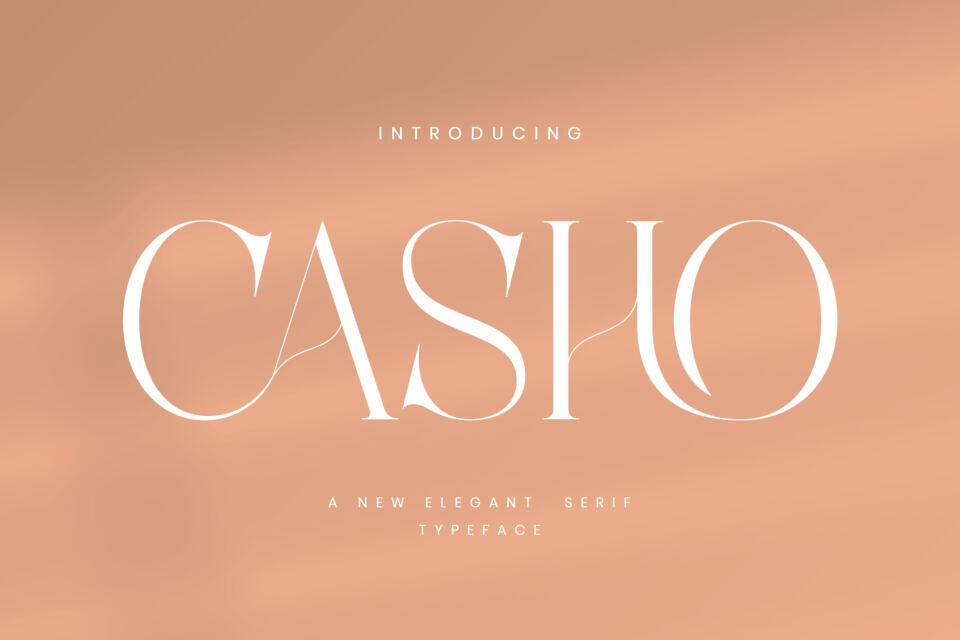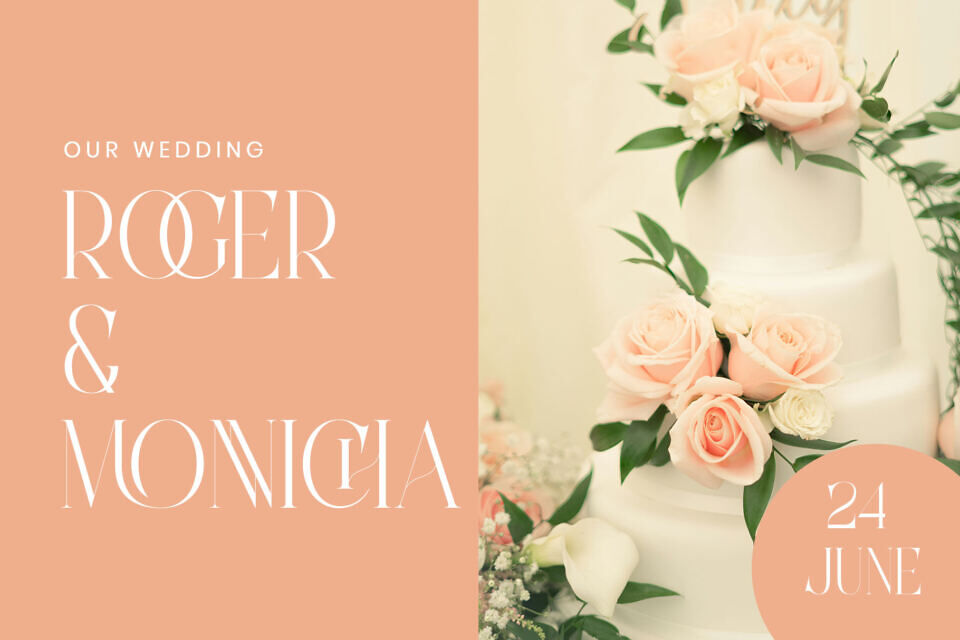
Casho Font
The Casho font is a stunning new, elegant serif typeface that masterfully blends traditional high-contrast serifs with breathtaking, delicate swashes and ligatures. Its refined, tall letterforms possess a luxurious, ethereal quality, enhanced by the sweeping, graceful lines that connect and extend beyond the typical character boundaries.
This typeface is the epitome of feminine luxury and subtle drama, ensuring an upscale and exclusive feel. Ideal for high-end wedding stationery, premium beauty and fashion branding, refined logo design, or sophisticated editorial layouts, the Casho font is a must-have asset that promises to infuse every word with timeless, artistic elegance and irresistible visual grace.